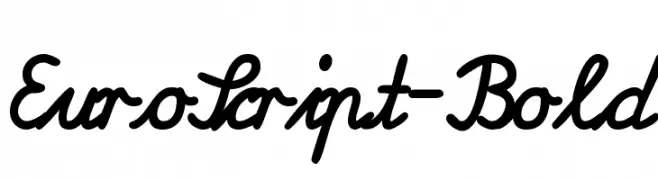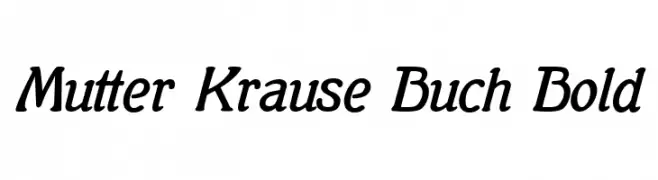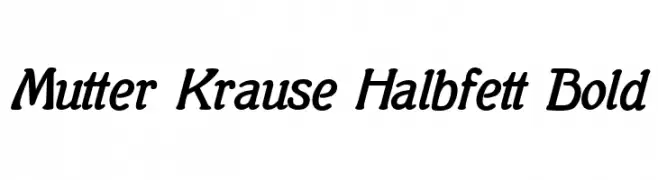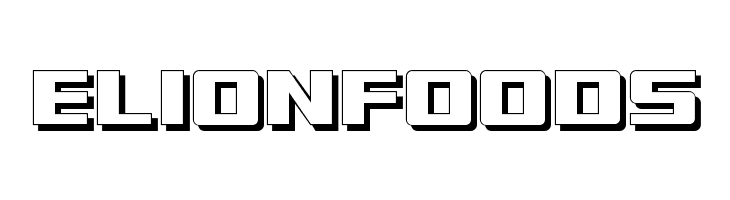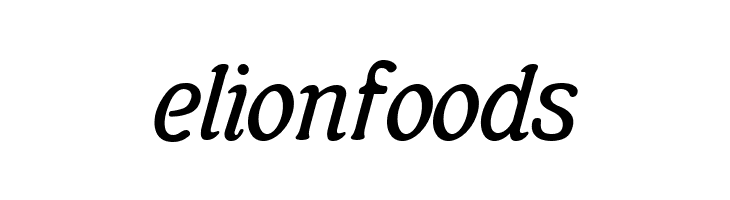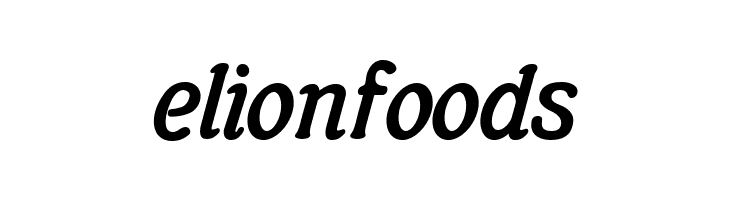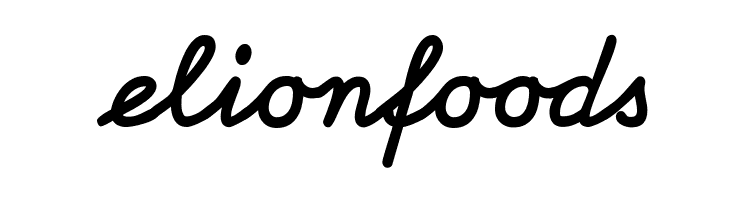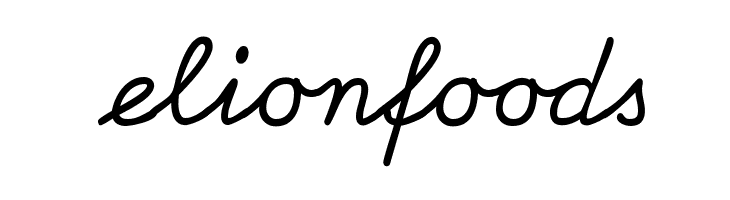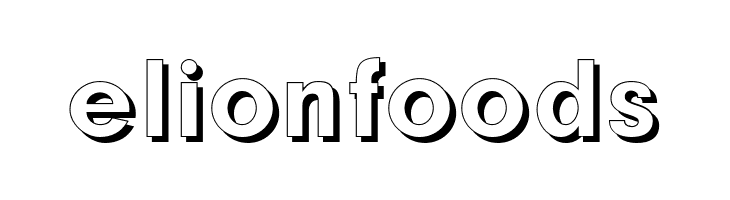
A bold, three-dimensional font with a geometric, retro style.
A bold, italicized serif font with strong, consistent strokes and pronounced serifs.
A classic, elegant font with a slight slant and moderate contrast, perfect for sophisticated designs.
A bold, slightly slanted serif font with a classic and elegant style.
A bold, cursive font with a lively, handwritten style.
A classic handwritten script font with fluid, cursive strokes.
A bold, geometric font with a modern and impactful design.
A bold, outlined typeface with a modern, geometric style.
A decorative script font with playful, flowing cursive letterforms.
A bold, geometric sans-serif font with a distinctive shadow effect.